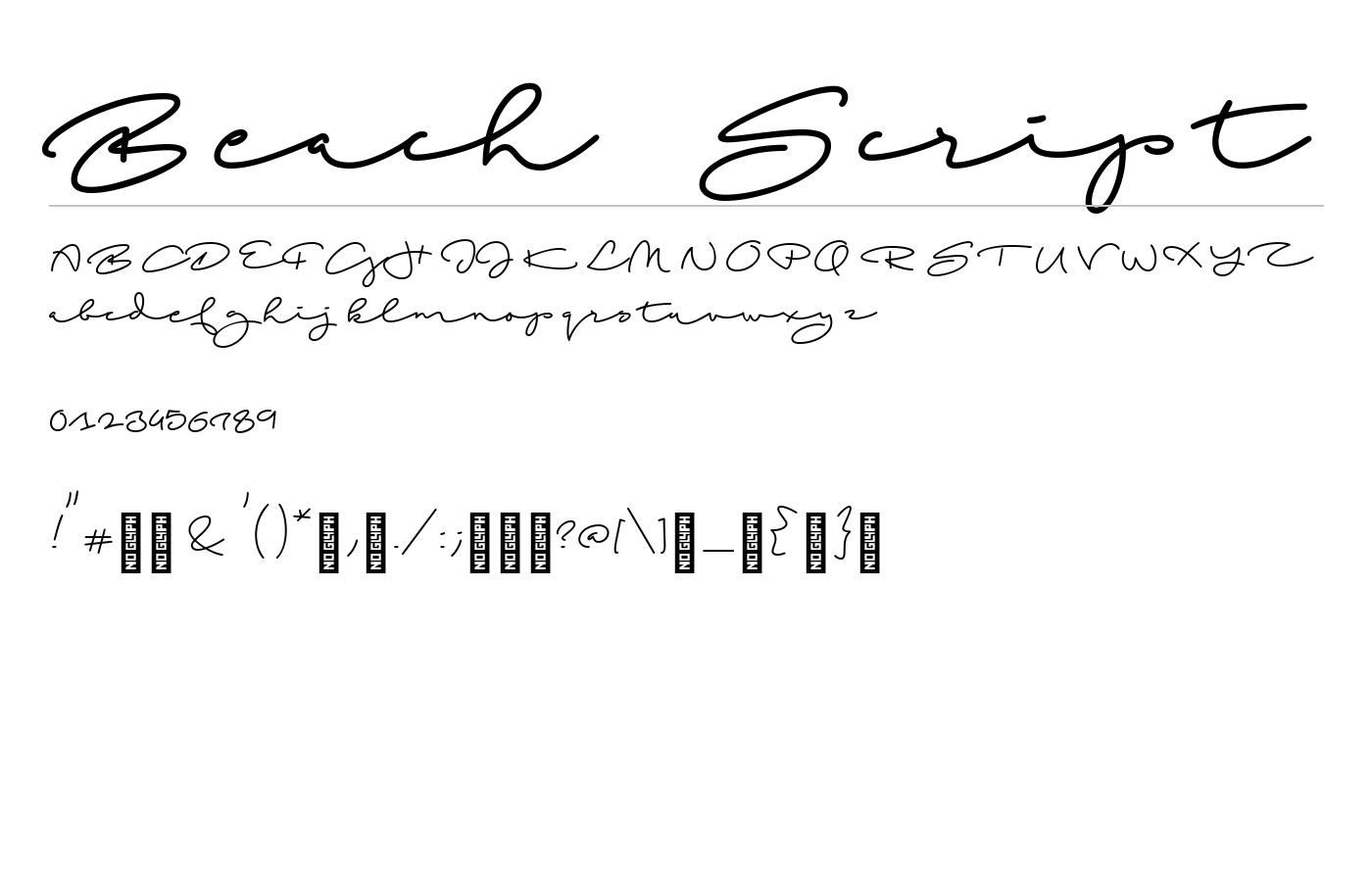
Beach Script is a light and elegant handwritten script font featuring smooth, flowing strokes with a natural, casual feel. Its delicate lines and airy letterforms make it perfect for creating friendly and approachable designs, ideal for invitations, branding, or lifestyle projects that want to convey warmth and personality. This font works well in contexts that benefit from a relaxed yet refined touch.
Beach Script Font
About Beach Script Font
| Font family | Beach Script Font |
| Designer | Roland Huse |